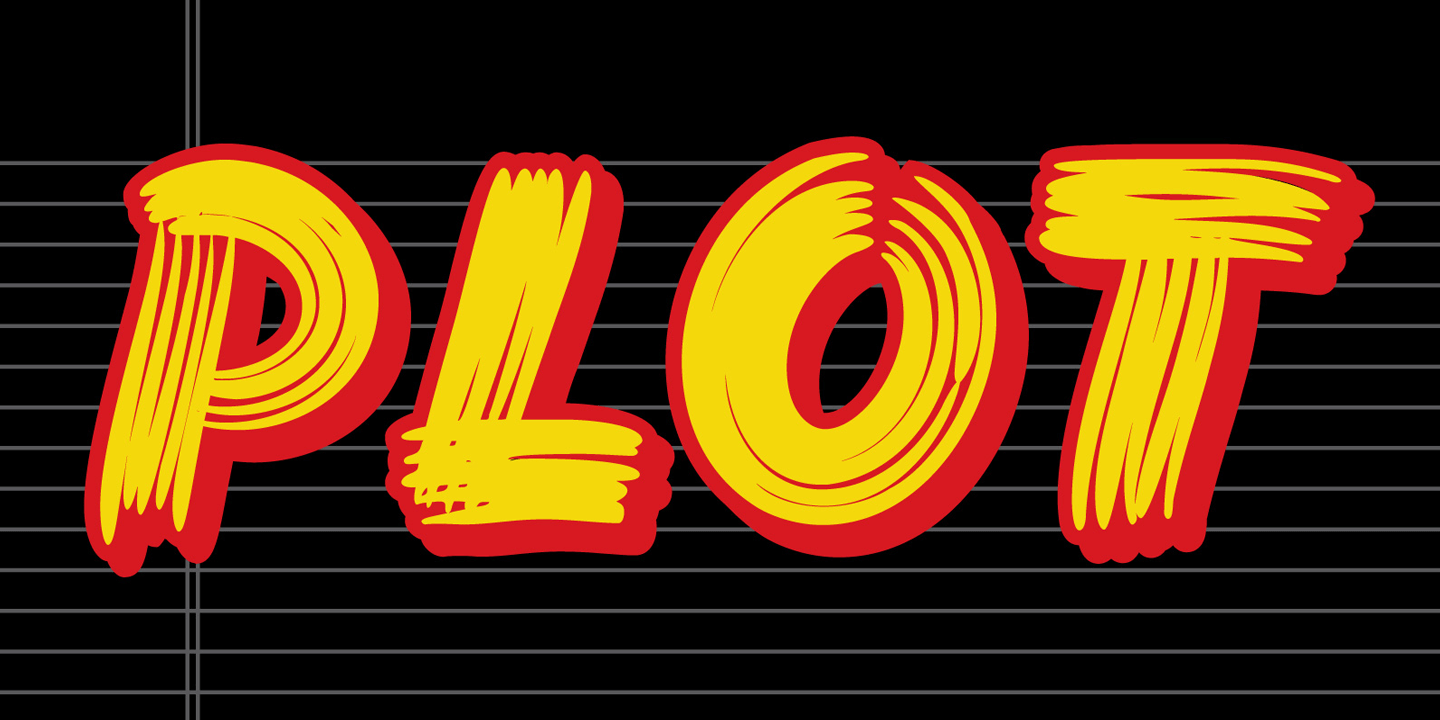
Plot
About Plot
A tip of the hat to the conspiracy-wary, the rapid beat of a pulsing heart and the feeling that doom is close at hand; this is the voice of Plot, a bold and hastily rendered display font. Plot Outline and its companion Plot Thickens may be used separately…